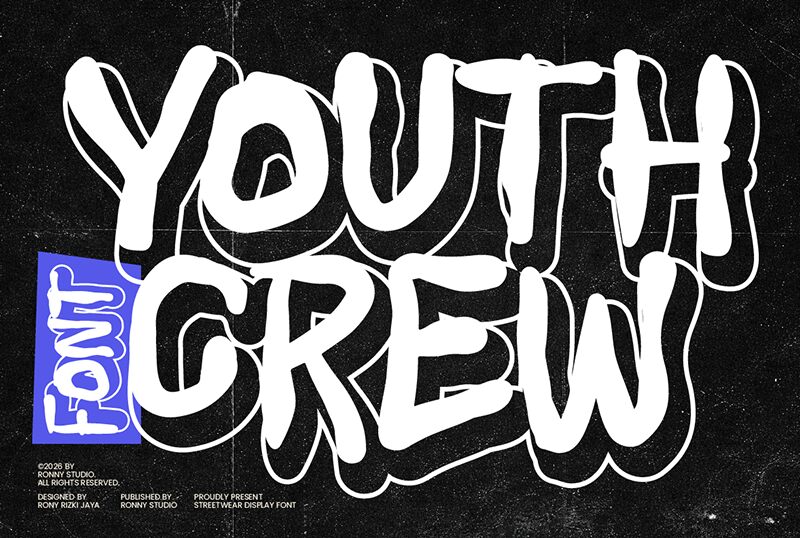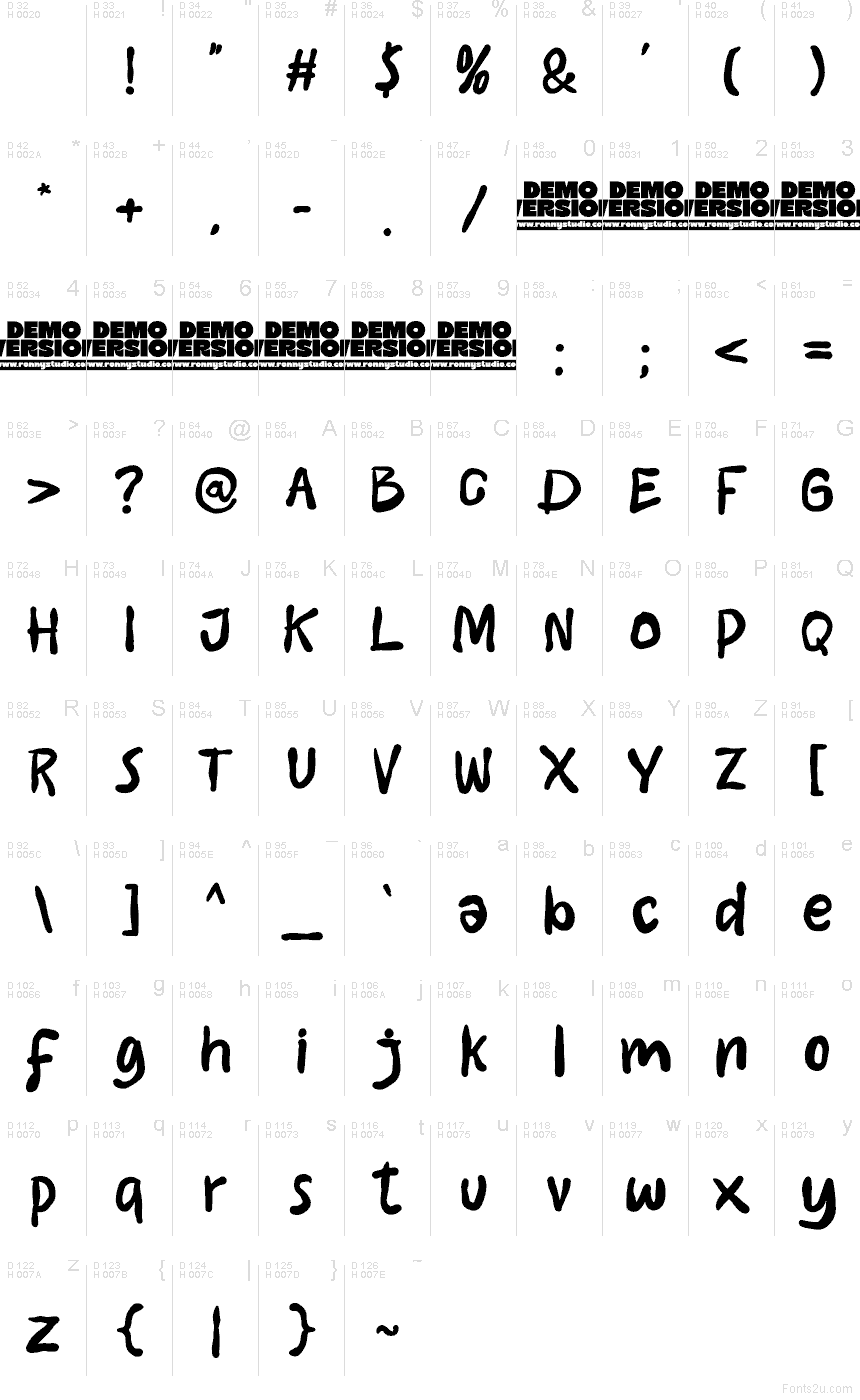
Youth Crew DEMO
Youth Crew, by Ronny Studio, is a free brush font with a loose, hand-painted bounce and a blunt, rounded stroke that keeps the lettering feeling casual and young. The letters look thick and slightly uneven in a natural way, with soft joins and a marker-like rhythm that leans more street-note than polished script.
It fits youth branding, skate and streetwear graphics, poster headlines, music cover lines, and social media title cards where a free font can carry an informal, handwritten pulse without turning precious. It also works well for quick logos or merch tags, because the broad brush shapes stay bold while the uneven flow keeps the mood relaxed.
Youth Crew was created to bring bold, energetic, and modern vibes into your design projects. Perfect for branding, posters, apparel, social media, album covers, and more.